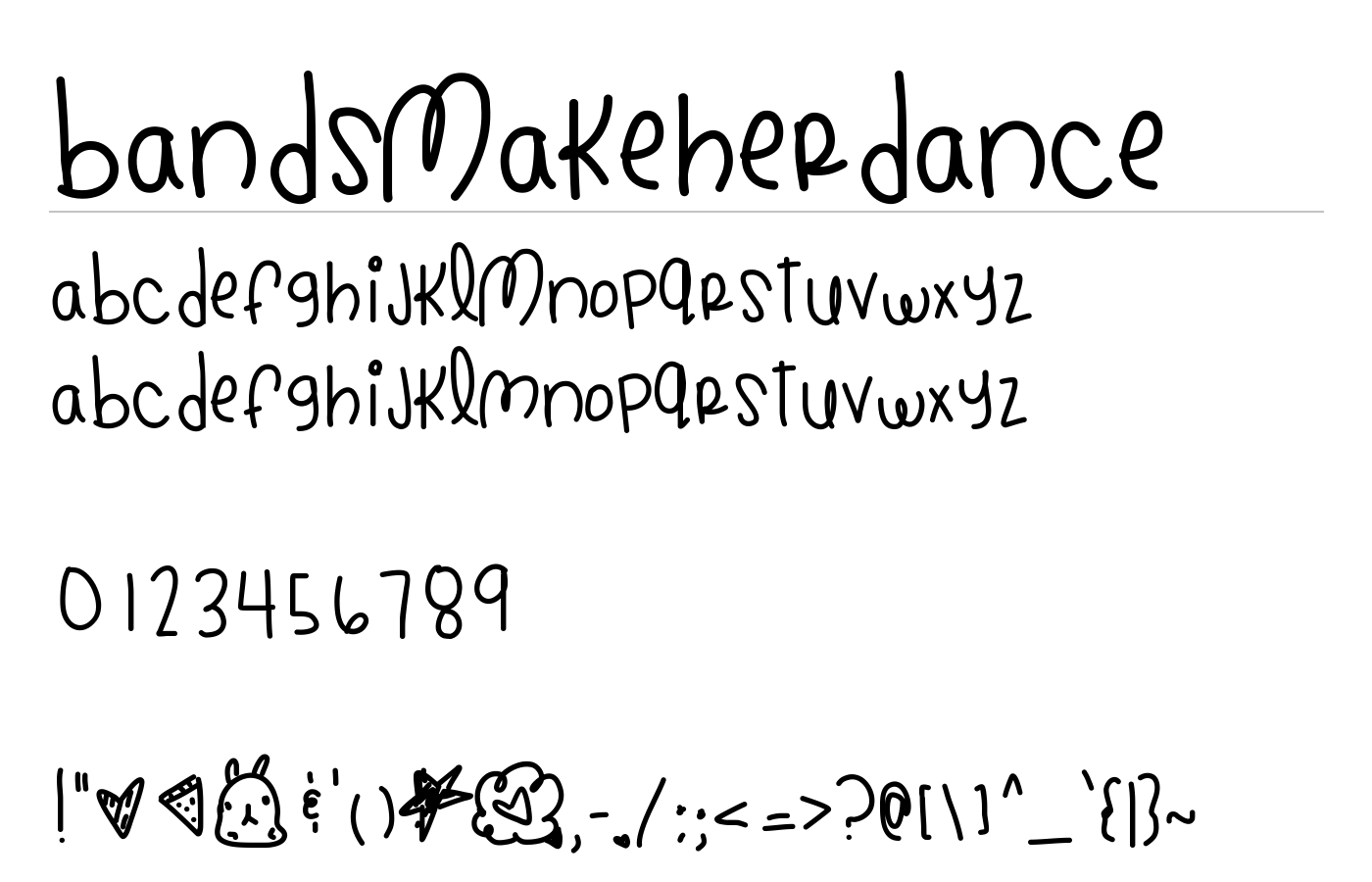
BandsMakeHerDance is a playful and quirky handwritten font with a casual, friendly feel. Its tall, narrow letterforms and unique character shapes, like the lively ‘M’ and fun doodle-like symbols, give it an informal and creative personality that works well for lighthearted designs, kids’ projects, and whimsical branding. This font shines in headlines, invitations, and any context where a charming, personal touch is desired.
BandsMakeHerDance Font
About BandsMakeHerDance Font